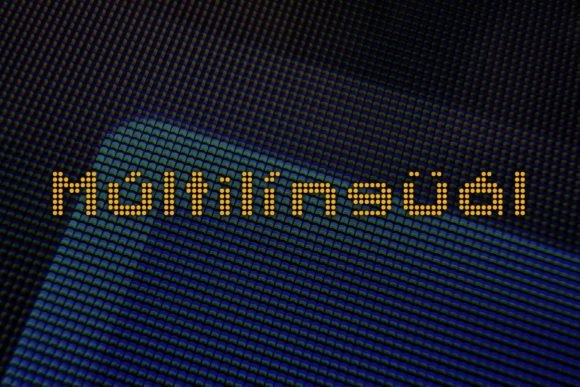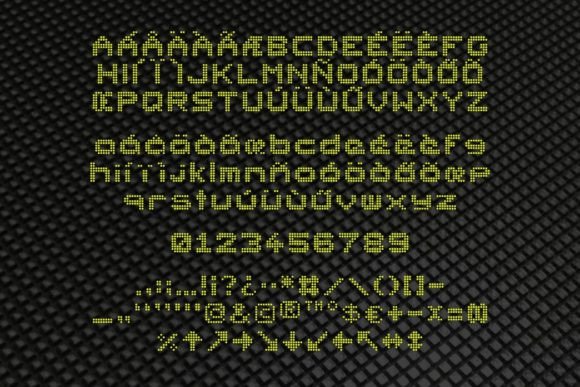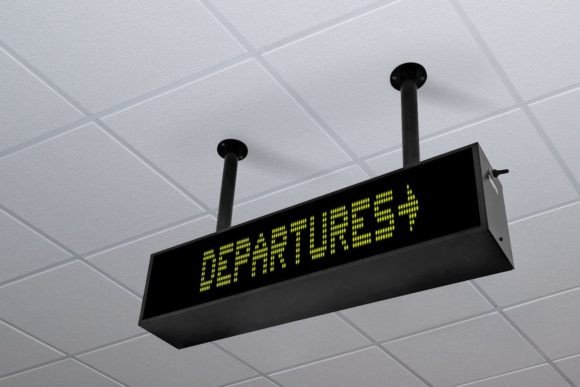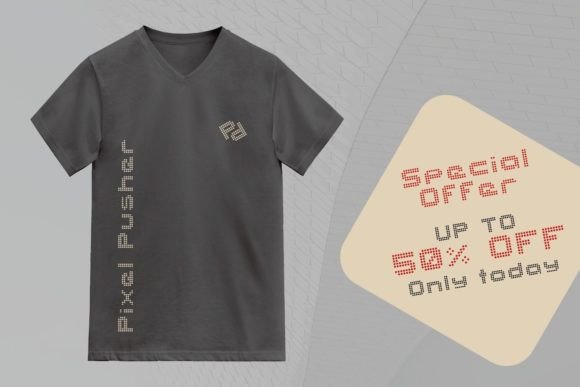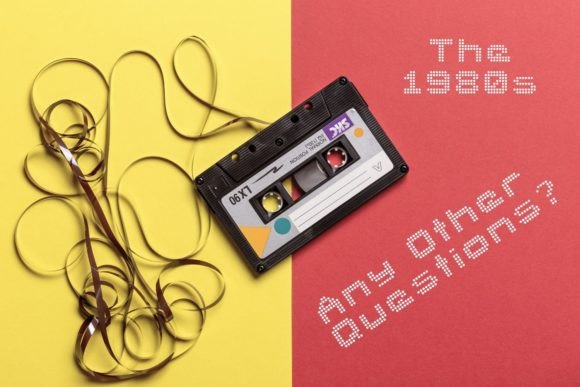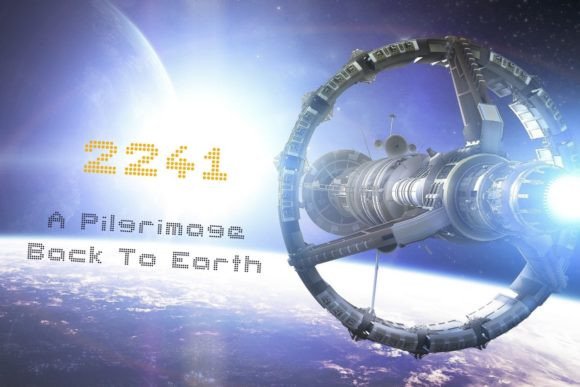
Introduction to Smidge Font
Smidge is a cool-looking, geometric, 8×8-grid-based decorative font reminiscent of LED signs.
Its unique retro-yet-modern style is perfect for web design, games, flyers, posters, logos, advertising, t-shirts, package designs, or pretty much anything else that requires a unique touch .